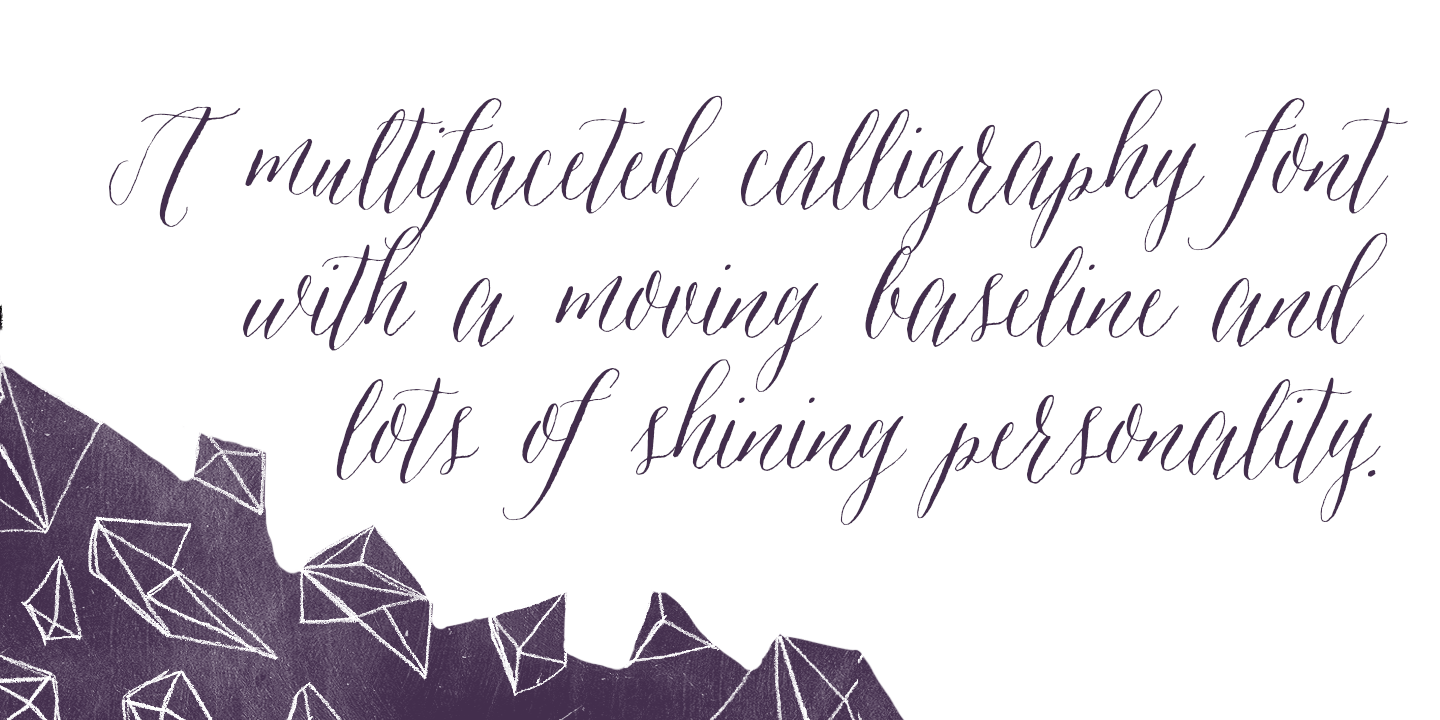
This celestial typeface excels in astronomy club branding, planetarium exhibitions, space-themed events, mystical book covers, astrology publications, cosmic art galleries, stargazing experience materials, and celestial communications. Its stellar character makes it perfect for projects requiring cosmic wonder and astronomical sophistication.
Asterism Font creates excitement through its stellar magnificence that captures the infinite mystery of star patterns and cosmic beauty. The font's constellation-inspired curves and astronomical letterforms create an atmosphere of celestial wonder that resonates with audiences seeking cosmic experiences and universal understanding. Its astronomically crafted character variations deliver galaxy-clear readability while maintaining distinctive stellar personality that reflects humanity's eternal fascination with the cosmos and the transformative power of stargazing and astronomical discovery.
The Asterism Font family features multiple cosmic variations including regular, light, bold, nebula, and constellation styles. Each family member maintains the distinctive astronomical aesthetic while offering different levels of celestial sophistication for various cosmic applications. This stellar collection allows designers to create universal compositions that celebrate the full spectrum of astronomical experiences from intimate stargazing moments to grand cosmic revelations.